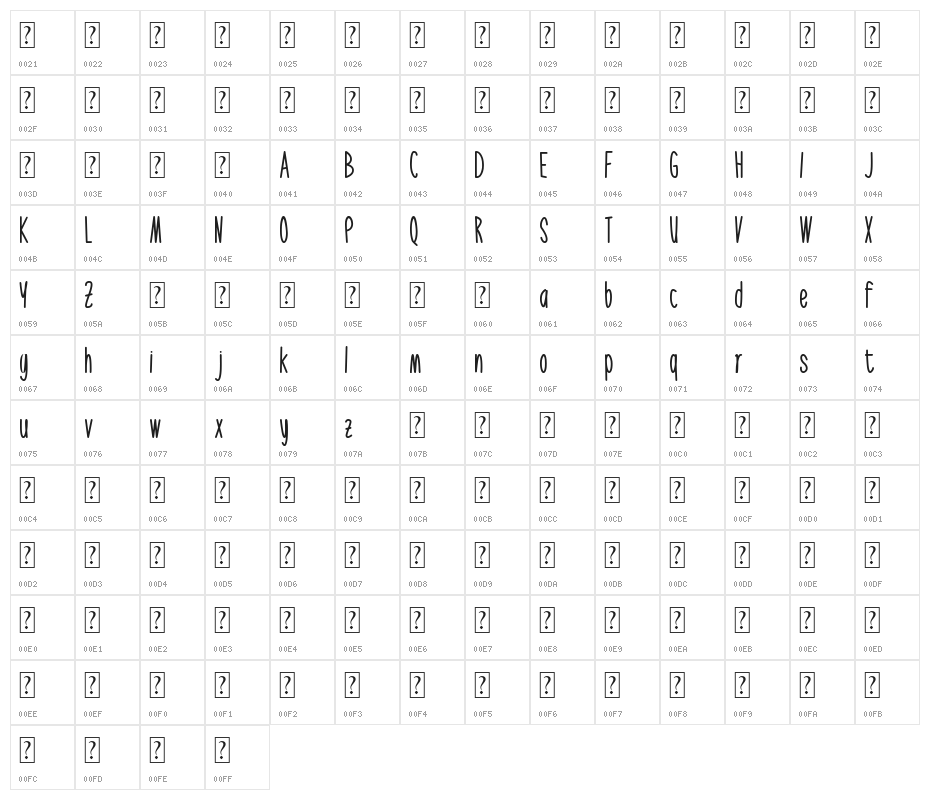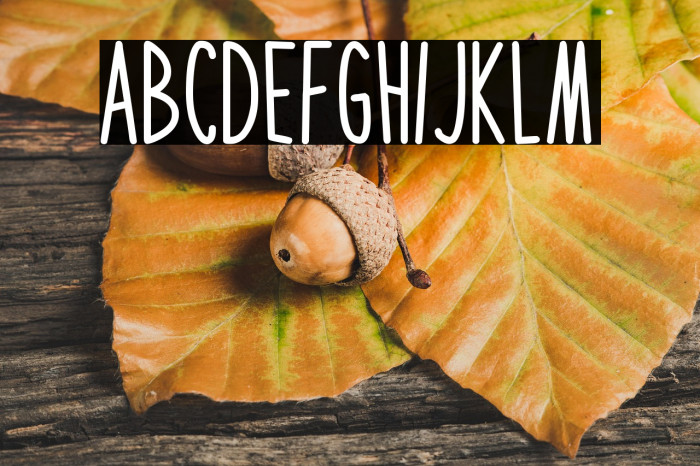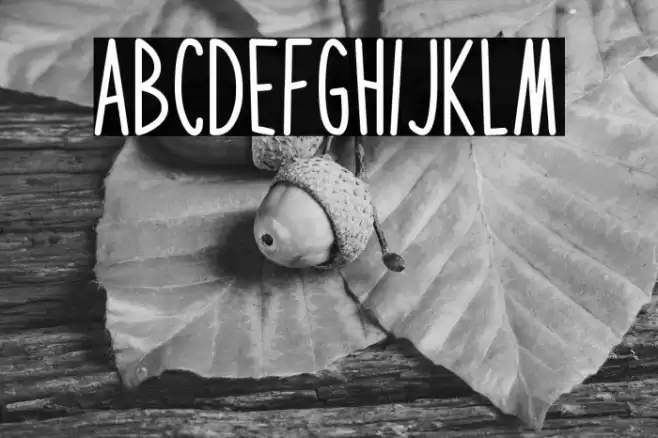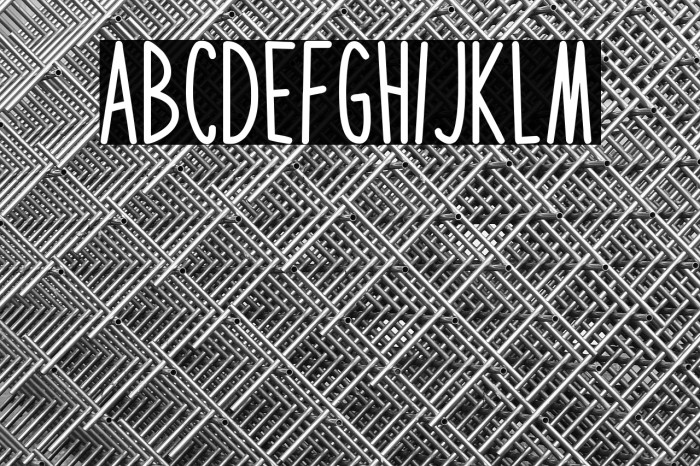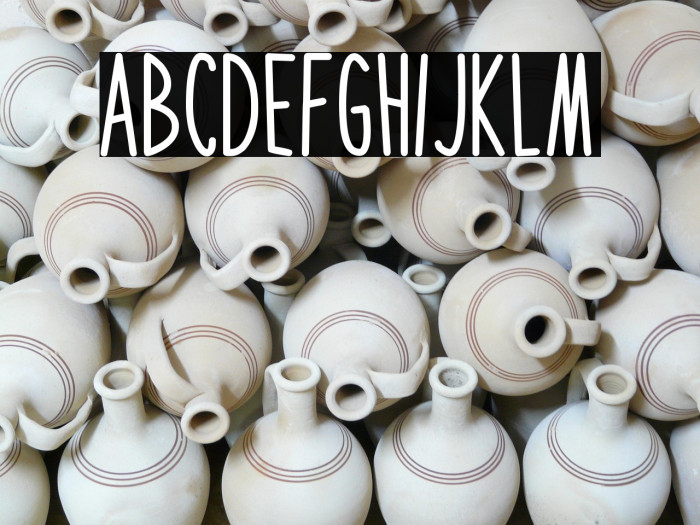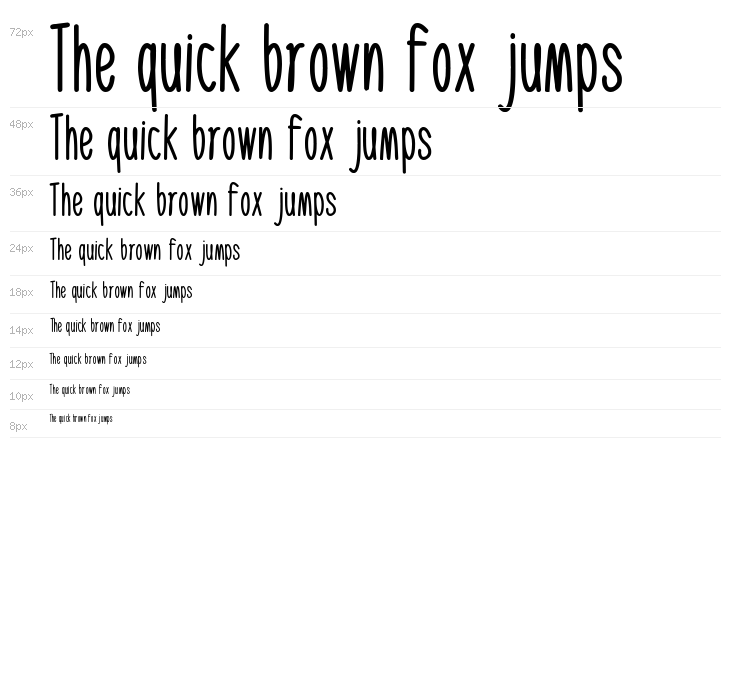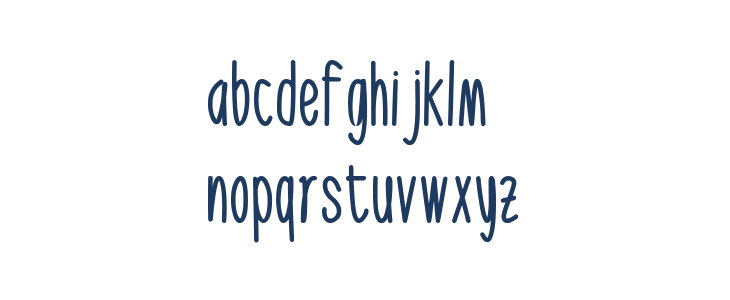
Filatelis Font
Filatelis Description
This font features a playful and casual handwritten style with tall, narrow letters. The strokes are smooth and slightly irregular, giving it a friendly and approachable appearance. The uppercase and lowercase letters maintain a consistent style, with a slight slant that adds to its informal charm. The font lacks traditional serifs, emphasizing its modern and relaxed feel. It is well-suited for creative projects that require a personal touch, such as invitations, greeting cards, or playful branding. The spacing between characters is relatively tight, which enhances its cohesive look.
| Proposed Projects | Ideal for invitations, greeting cards, playful branding, and creative projects. |